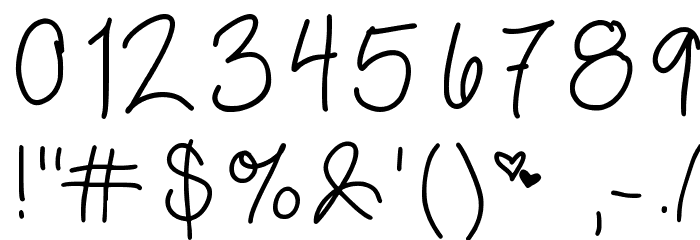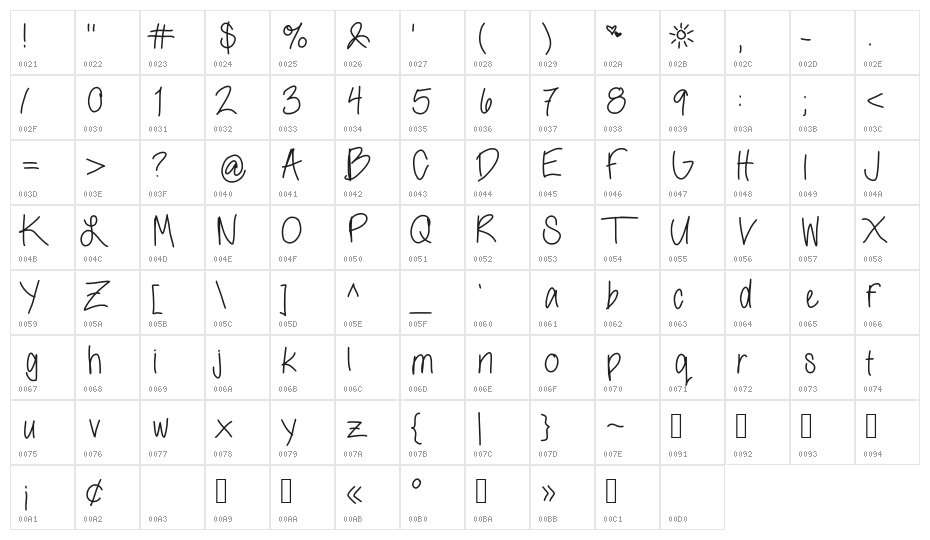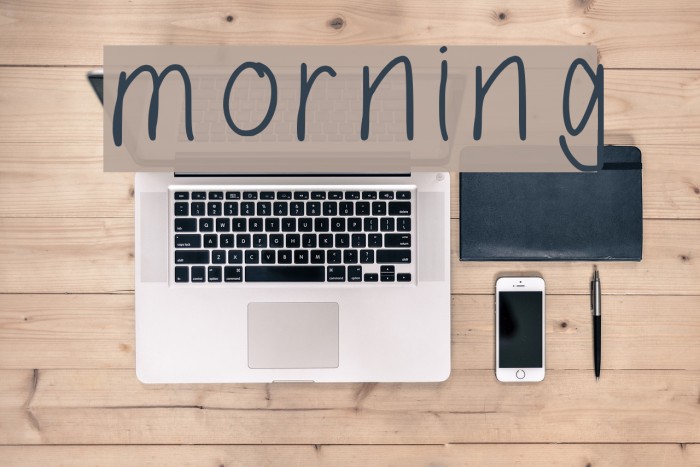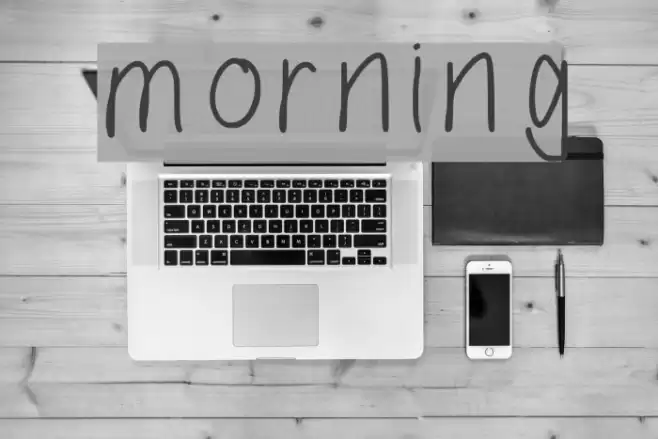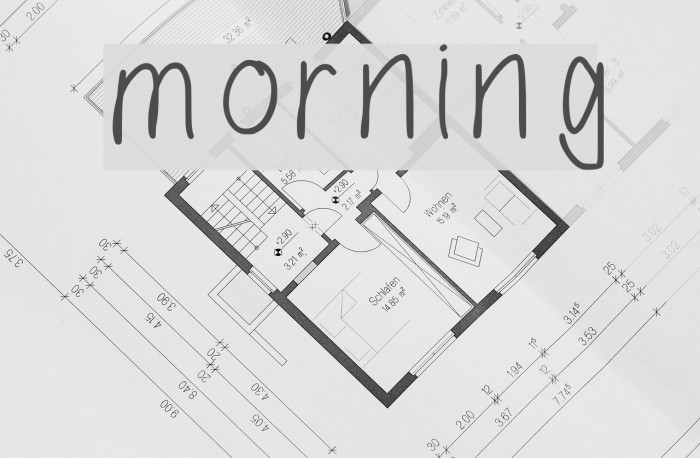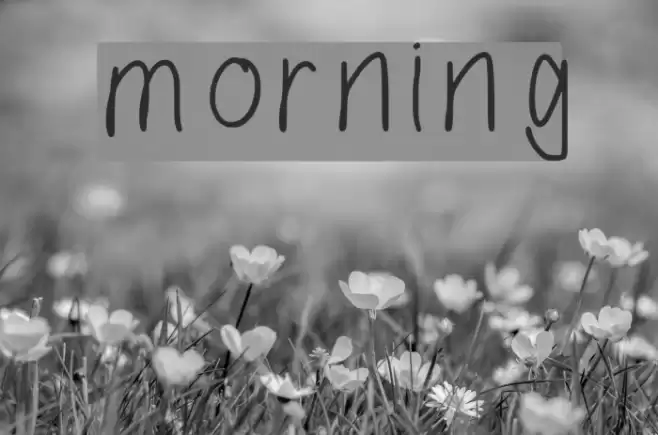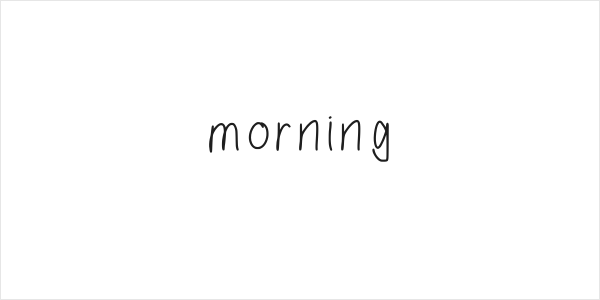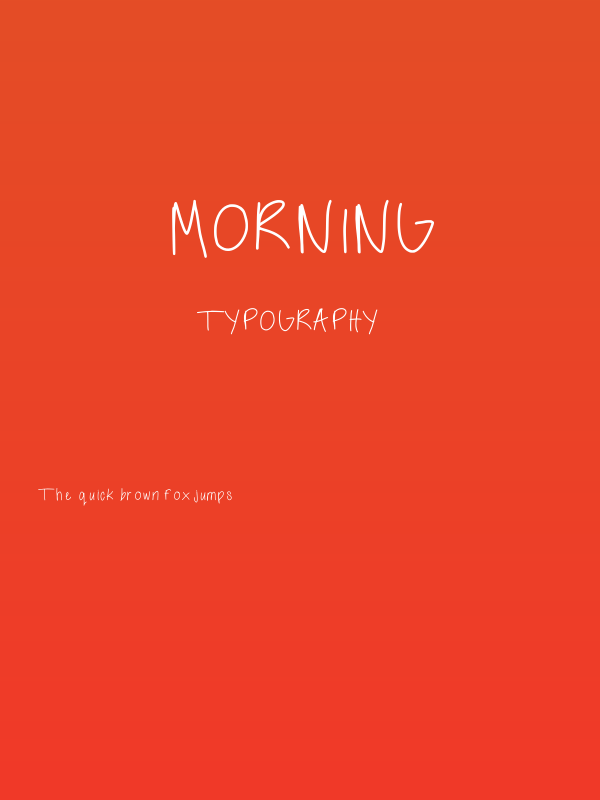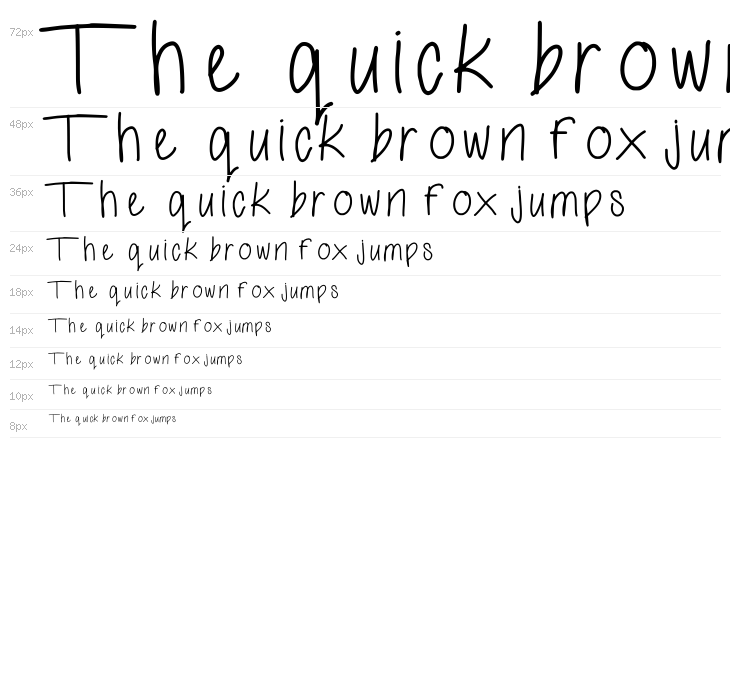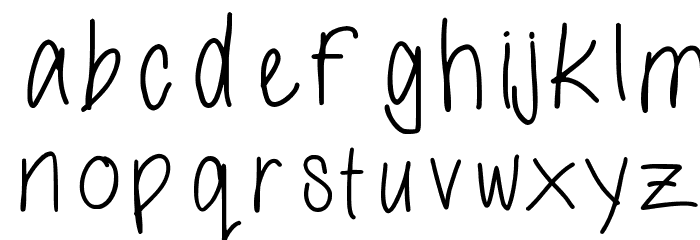
morning Font
This font features a playful and casual handwritten style, characterized by its loose and flowing strokes. The letters have a natural, organic feel, with slight variations in height and angle that add to its charm. The uppercase letters are bold and slightly larger, while the lowercase letters maintain a consistent size, creating a harmonious balance. The numerals and special characters follow the same informal style, making the font versatile for various creative projects. Its overall appearance is friendly and approachable, ideal for conveying a personal touch.